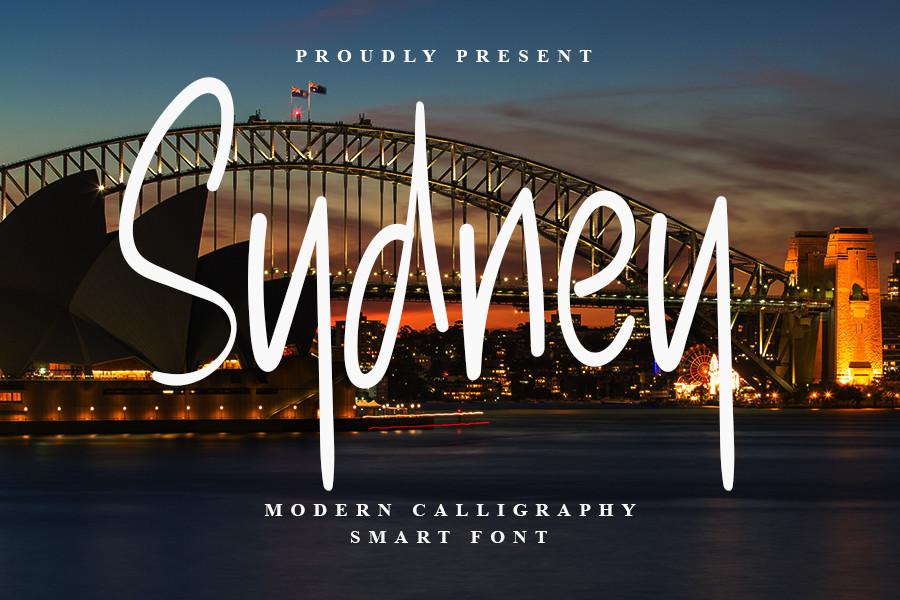
Sydney Font Description
Sydney is a romantic and sweet calligraphy typeface with characters that dance along the baseline. It has a casual, yet elegant touch. It can be used for various purposes such as logos, wedding invitations, headings, t-shirts, letterhead, signage, labels, news, posters, badges and so much more.